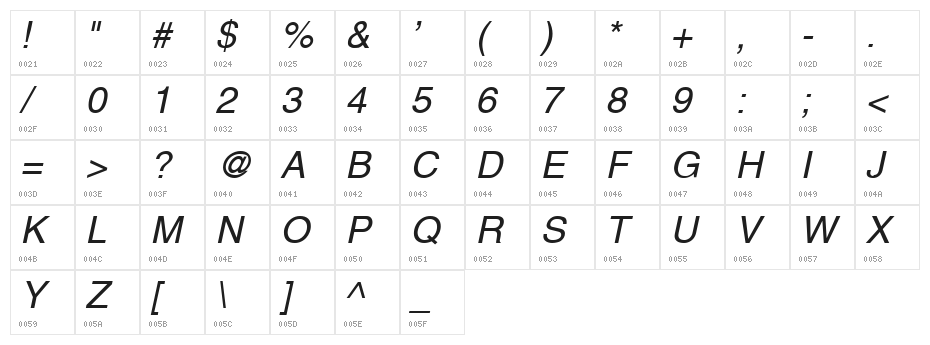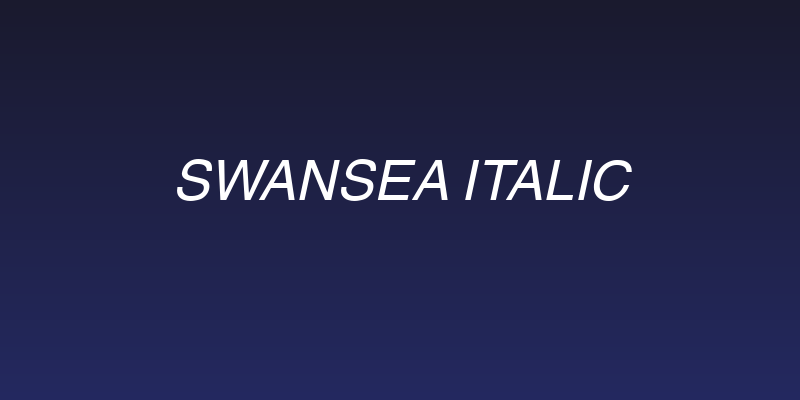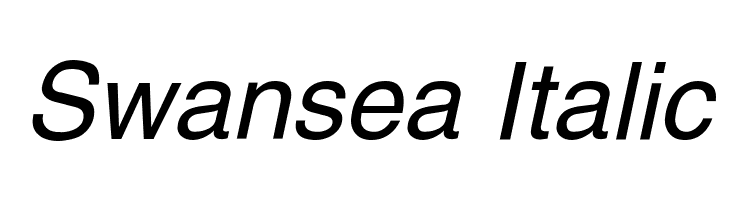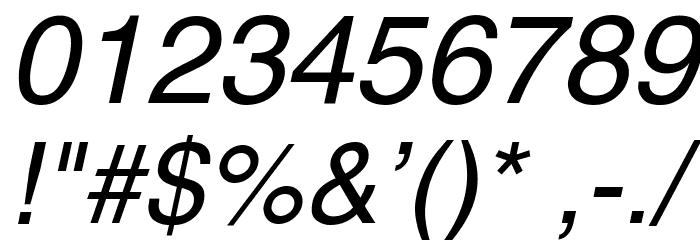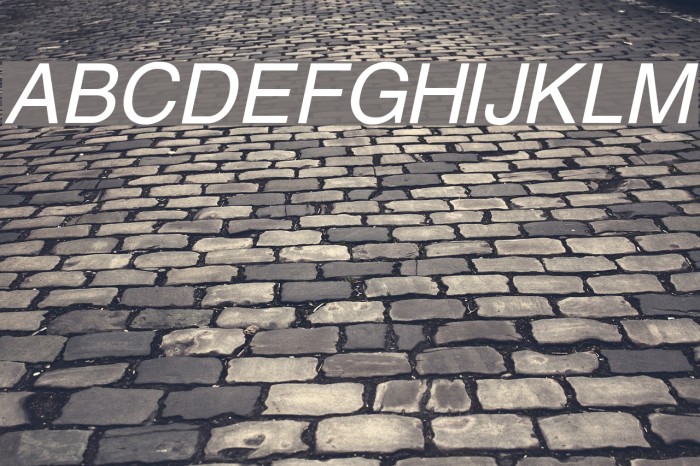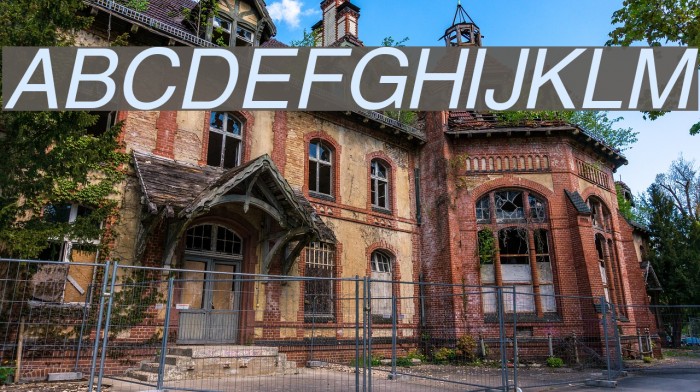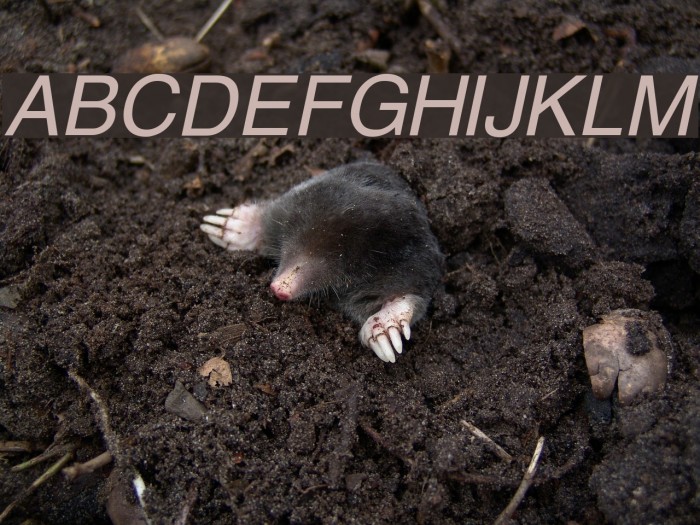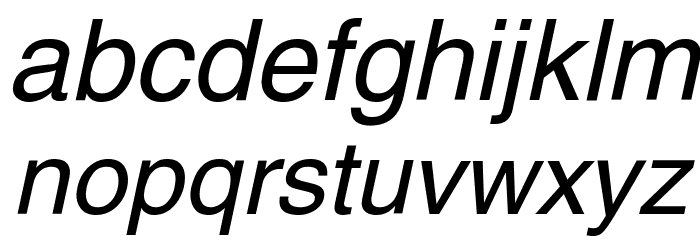
Swansea Italic Font
Swansea Italic Description
This font exhibits a sleek and modern italic style, characterized by its smooth curves and slightly slanted letters. The uppercase and lowercase letters maintain a consistent flow, enhancing readability while adding a touch of elegance. The numerals are clear and distinct, matching the overall aesthetic of the alphabet. Special characters are well-integrated, ensuring versatility in various applications. The font's design is both functional and stylish, making it suitable for contemporary projects that require a touch of sophistication.